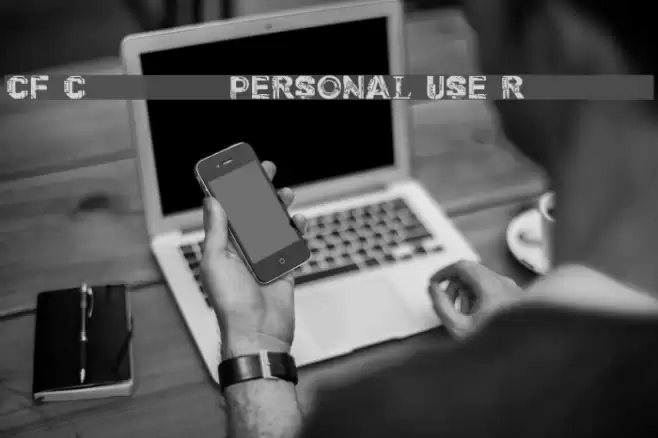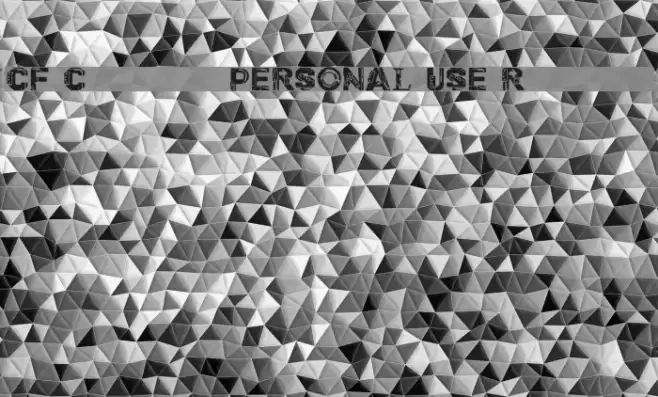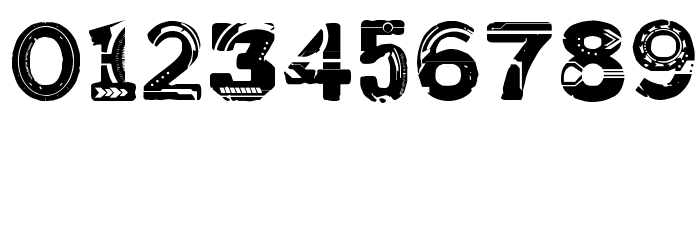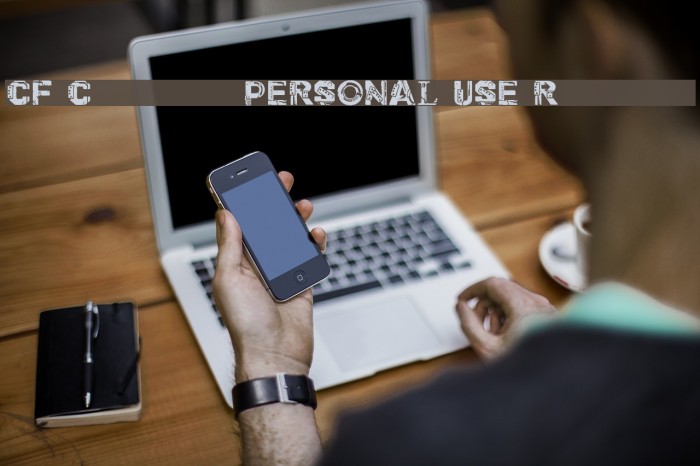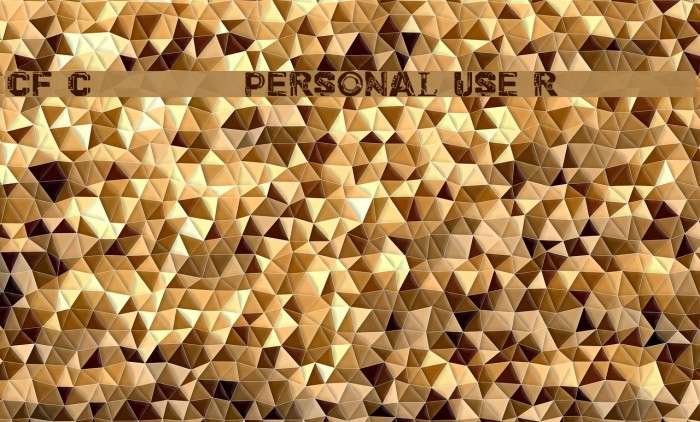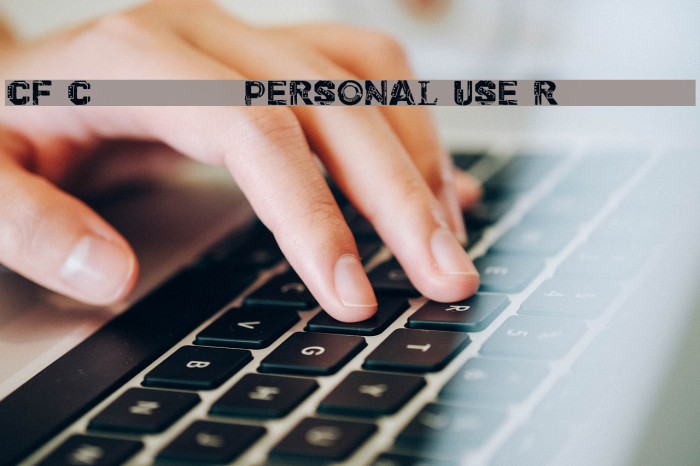
CF Cyborg PERSONAL USE Regular Font
CF Cyborg PERSONAL USE Regular Description
This font features a futuristic and mechanical design, with each character incorporating intricate patterns and textures reminiscent of circuit boards and machinery. The bold and angular letterforms are interspersed with lines and dots, creating a sense of depth and complexity. The font's unique style makes it stand out, with a high level of detail that suggests a technological or cybernetic theme. The uppercase letters are particularly striking, with each character displaying a distinct pattern that adds to the overall aesthetic. The numbers follow a similar design, maintaining consistency across the font. This font is ideal for projects that require a modern, tech-inspired look.
A futuristic, mechanical font with intricate patterns and a tech-inspired aesthetic from Uncategorized fonts.
- Proposed Projects: Ideal for sci-fi themed designs, tech company logos, video game titles, and futuristic posters.
- Overall Style: Futuristic, Technological